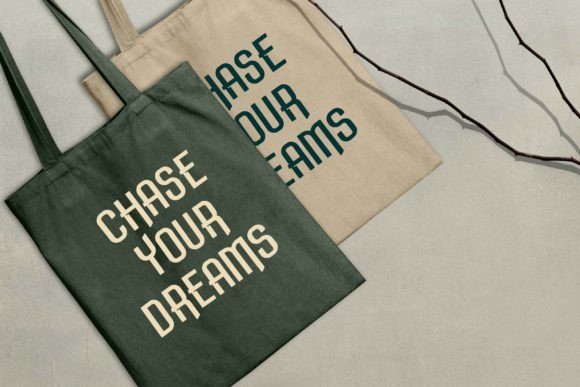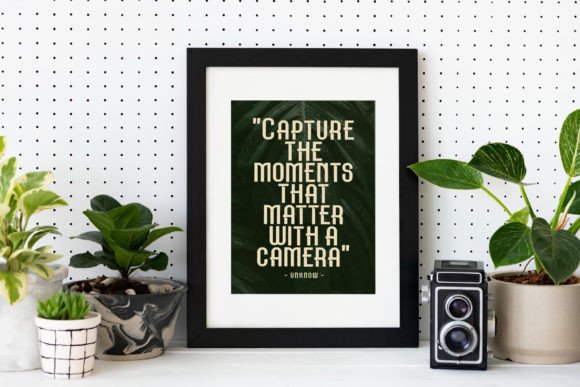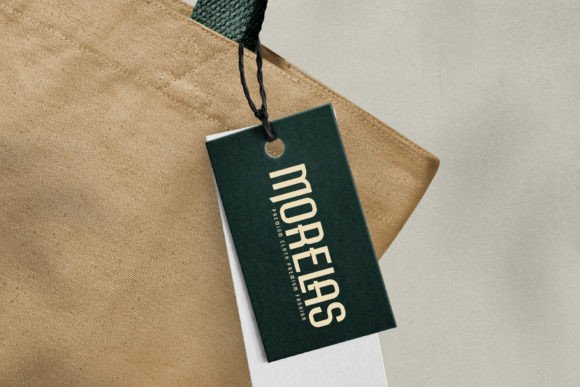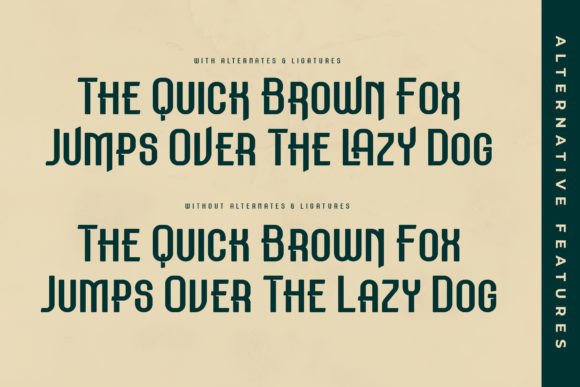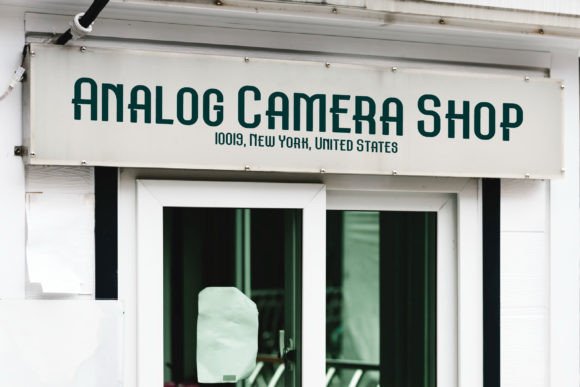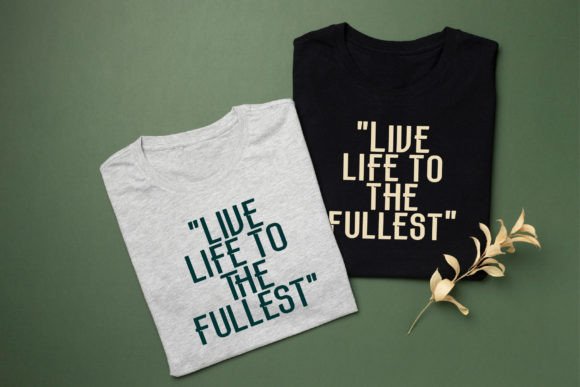
Introduction to Meholrax Font
Have you ever found yourself in the middle of a creative project, pouring over design options and feeling stuck? You’re scrolling through font libraries, searching for that one perfect typeface to elevate your work. And then, it hits you – the perfect font that makes everything fall into place. For many designers, this moment is what makes all the hard work worth it. And for those who have discovered the Meholrax Font, they know exactly what we’re talking about.
As a valuable design resource, the Meholrax Font is more than just a pretty face – it’s a high-quality typeface that can add sophistication and elegance to any creative project. Whether you’re working on a fashion brand, a magazine, or even a simple quote, the Meholrax Font is sure to impress. And the best part? You can download it for free, making it a transparent background for your creativity to shine.
Key Features of Meholrax Font
- Meolrax Font is designed to provide a unique and modern aesthetic for any project
Honest Review: Meholrax Font
As a designer, I’m always on the lookout for high-quality design resources to elevate my creative projects. Recently, I had the chance to try out the Meholrax Font, and I’m excited to share my honest review with you.
- ✨ Beautiful, unique characters that add a touch of elegance to any design
- ✨ High quality, crisp lines and smooth curves that make it perfect for print and digital projects
- ✨ Transparent background, making it easy to layer and combine with other design elements
- ⚠️ Limited font styles, which may not be ideal for projects that require a wide range of font options
- ⚠️ Not suitable for projects that require a bold, attention-grabbing font
Overall, I’m impressed with the Meholrax Font. It’s a great addition to any designer’s toolkit, especially for those working on creative projects that require a touch of sophistication. While it may have some limitations, it’s definitely worth considering for your next design project. You can even download it for free, making it an attractive option for designers on a budget.
Common Use Cases for the Meholrax Font
The Meholrax Font is perfect for use in a variety of creative projects, including logos, business cards,